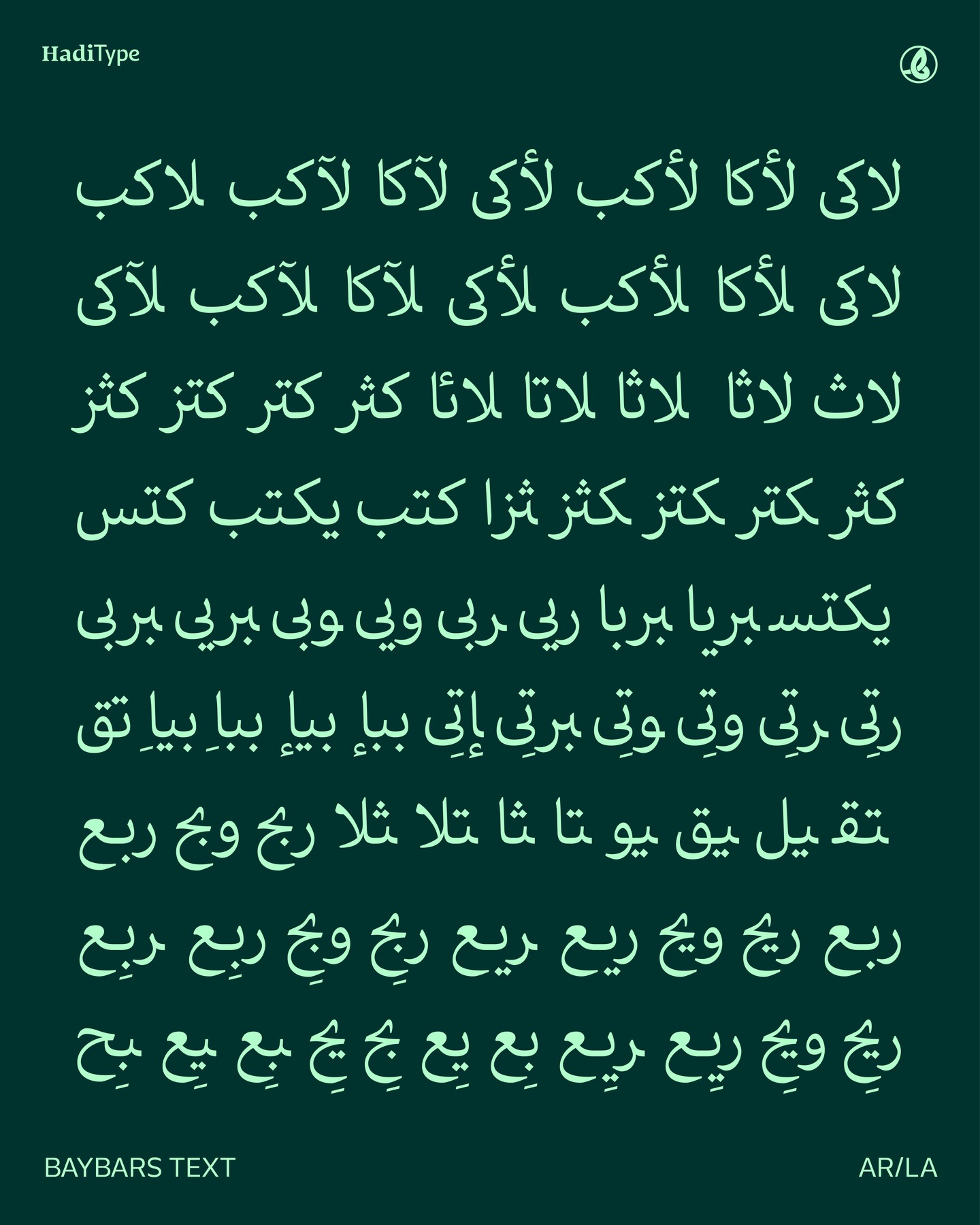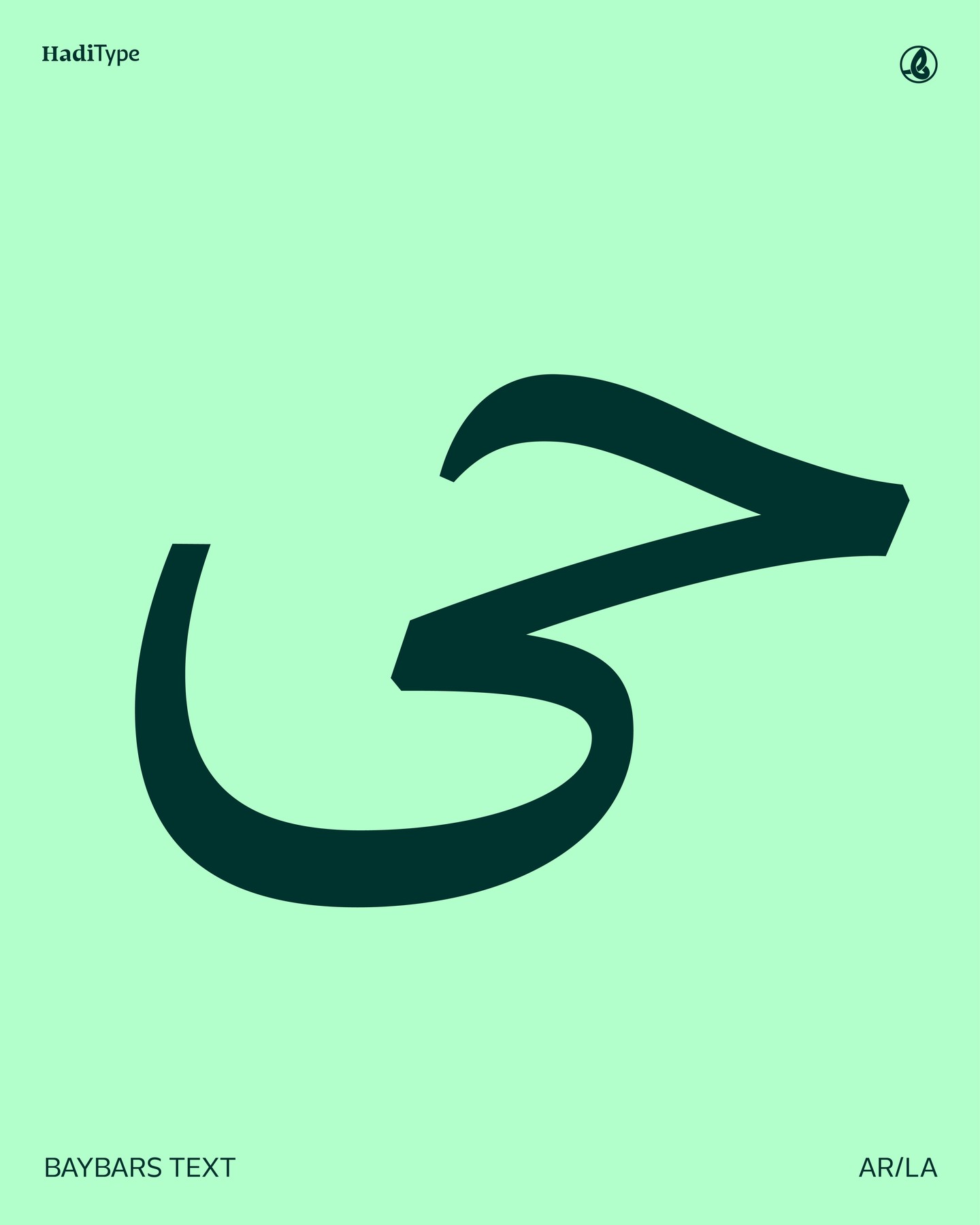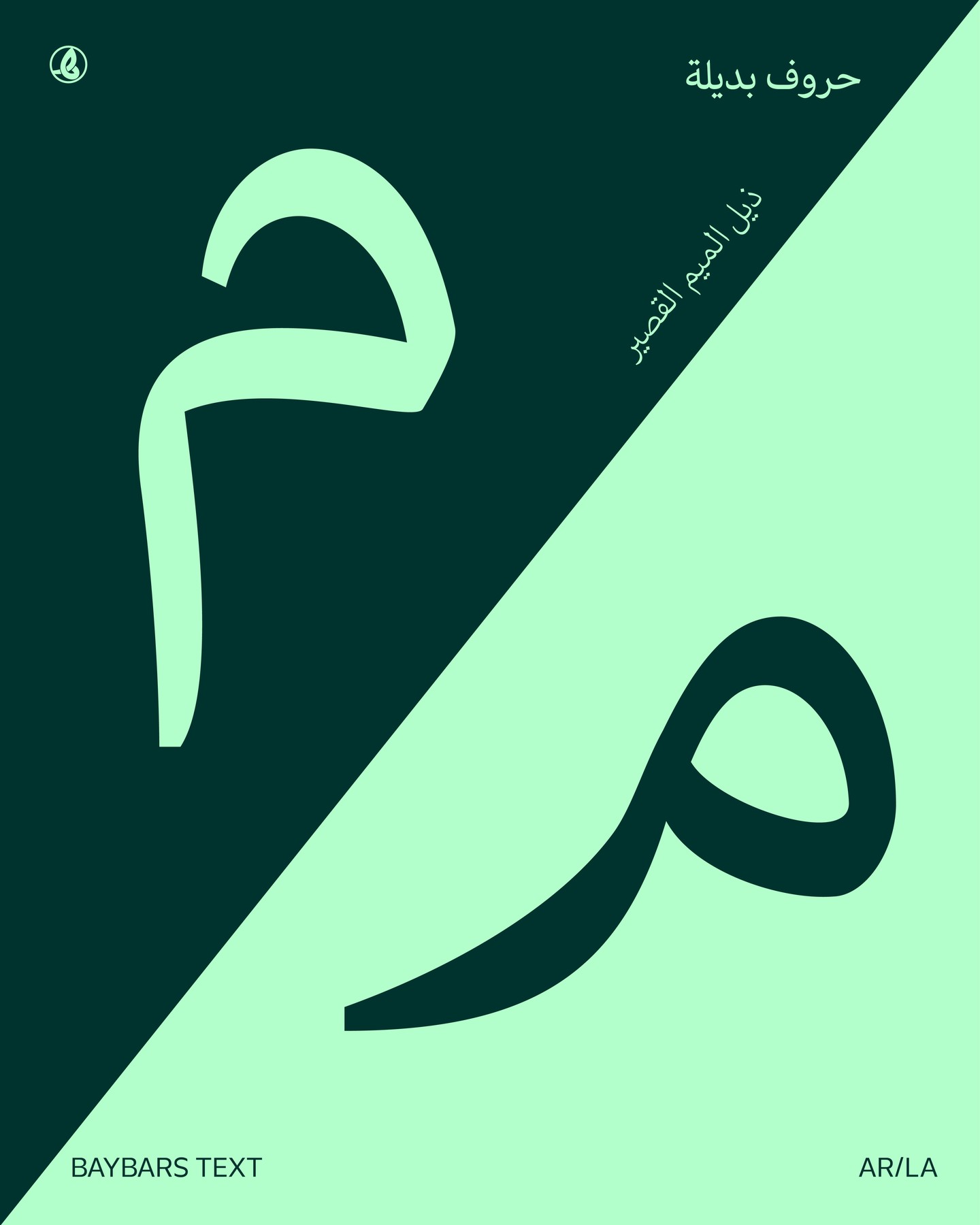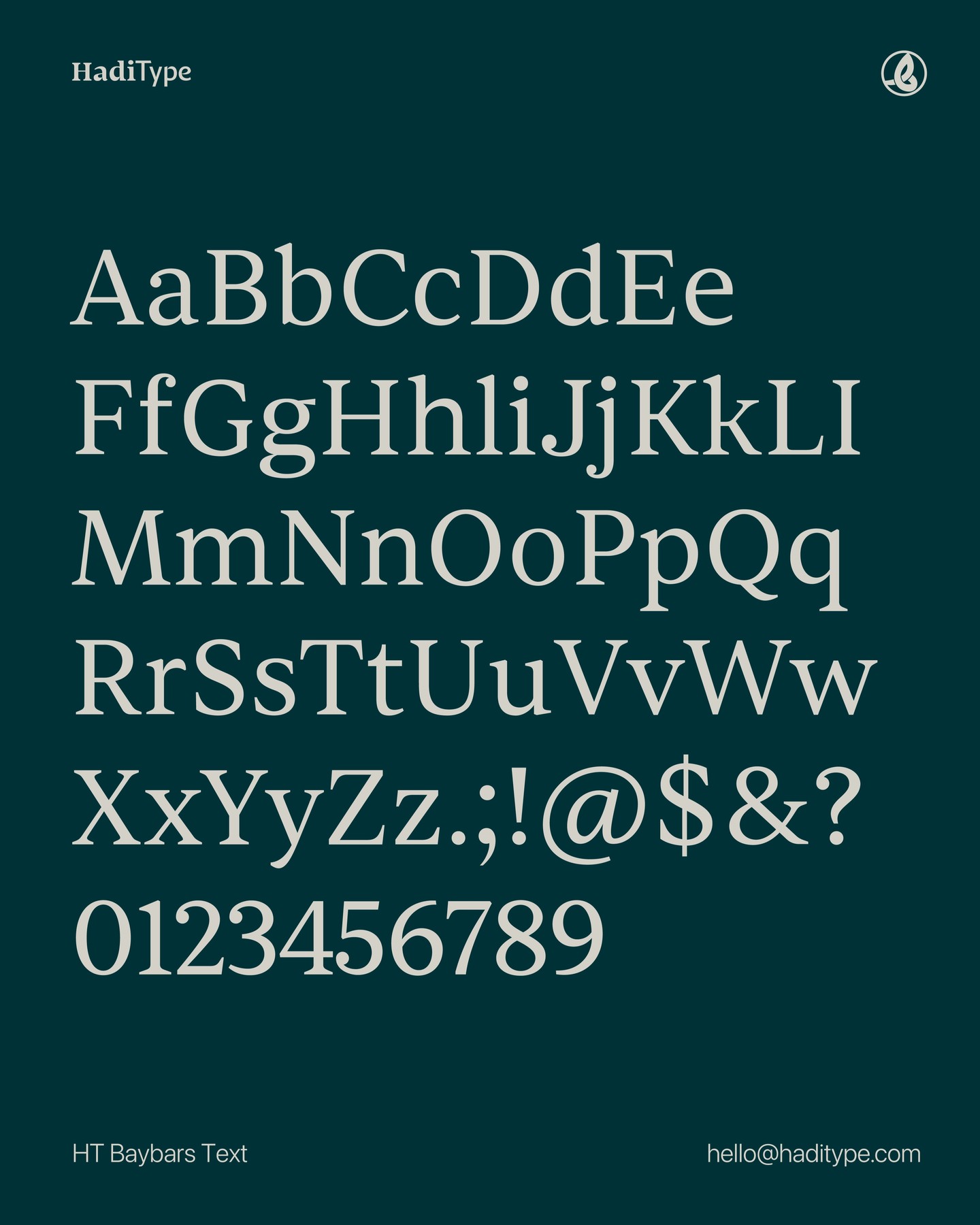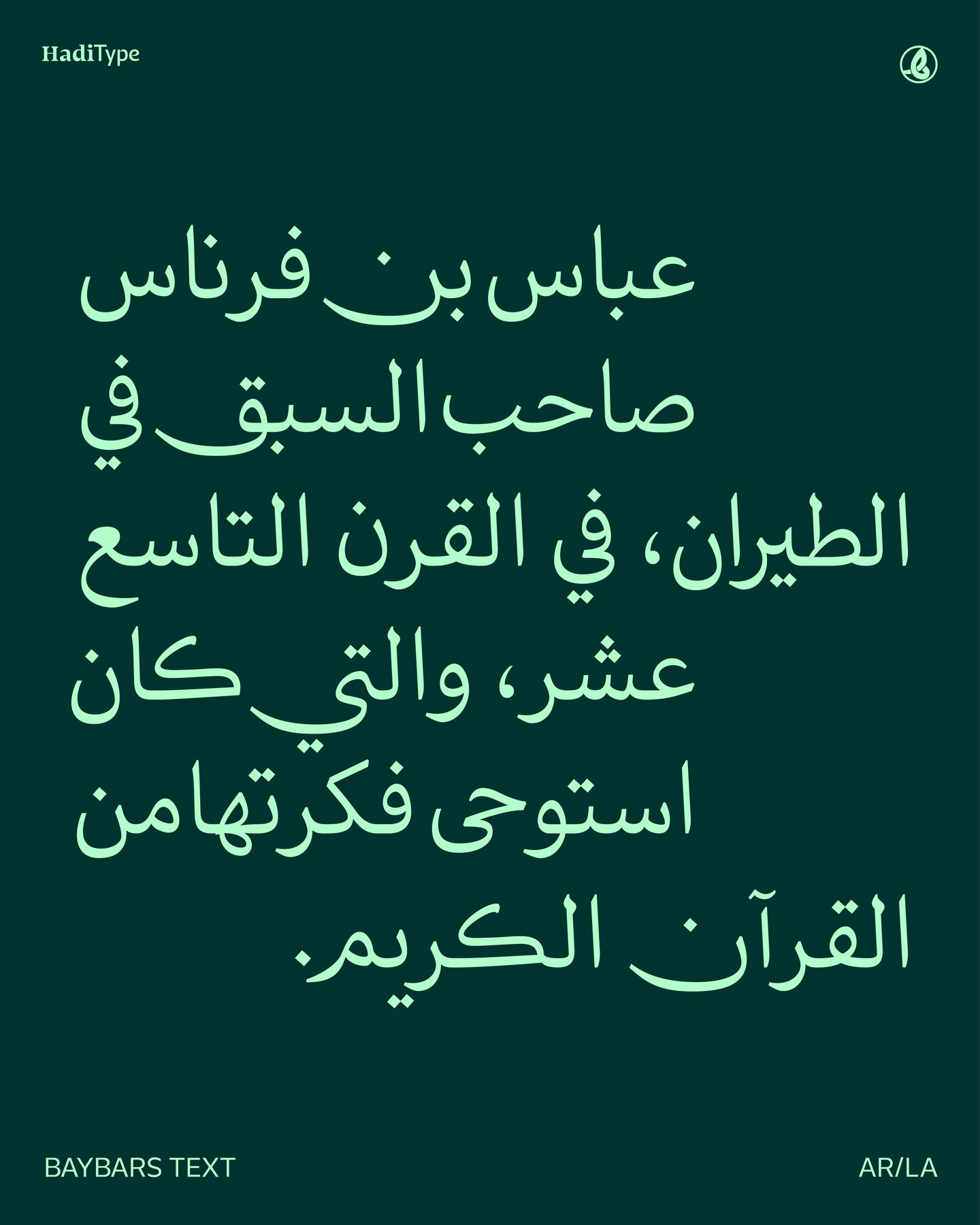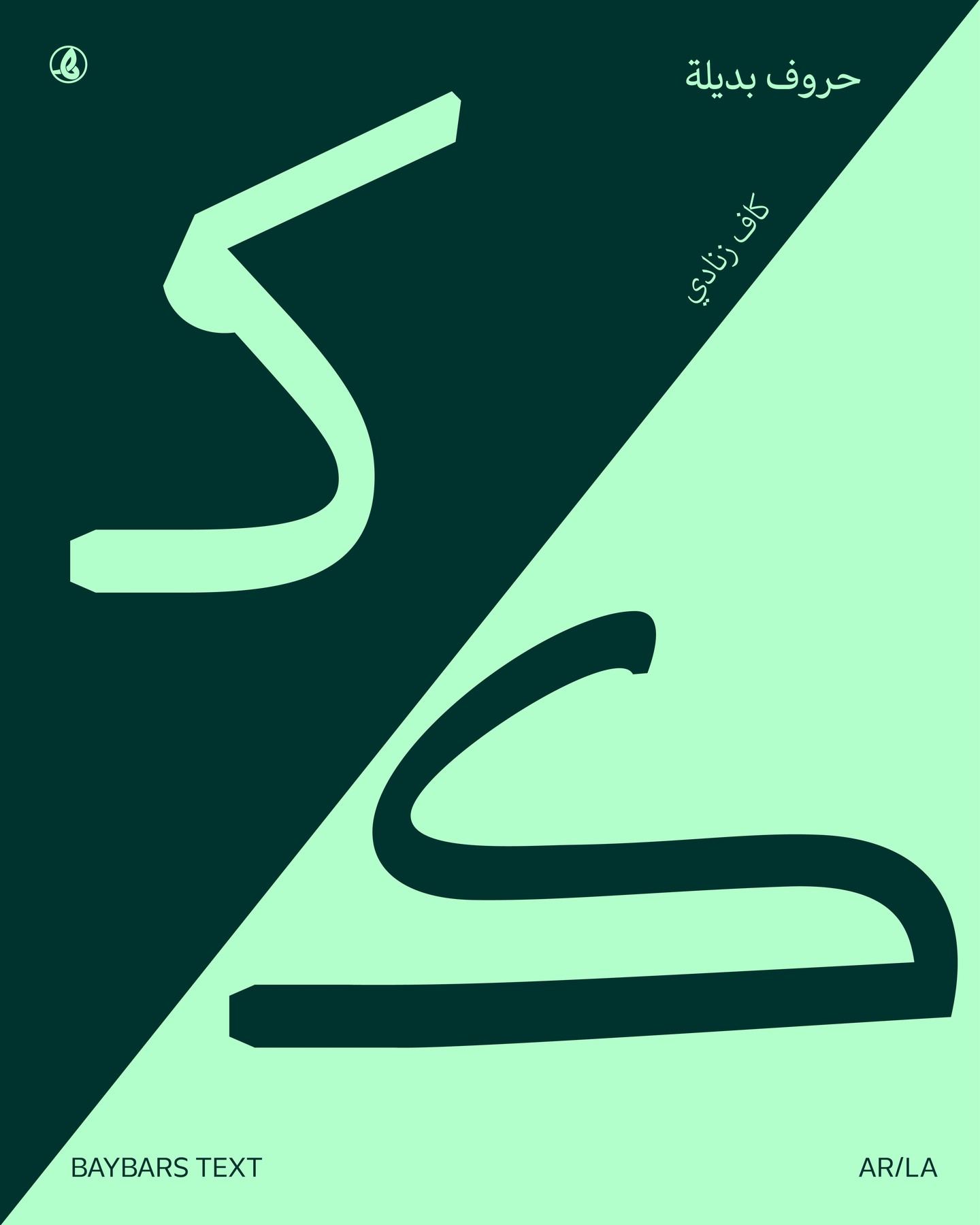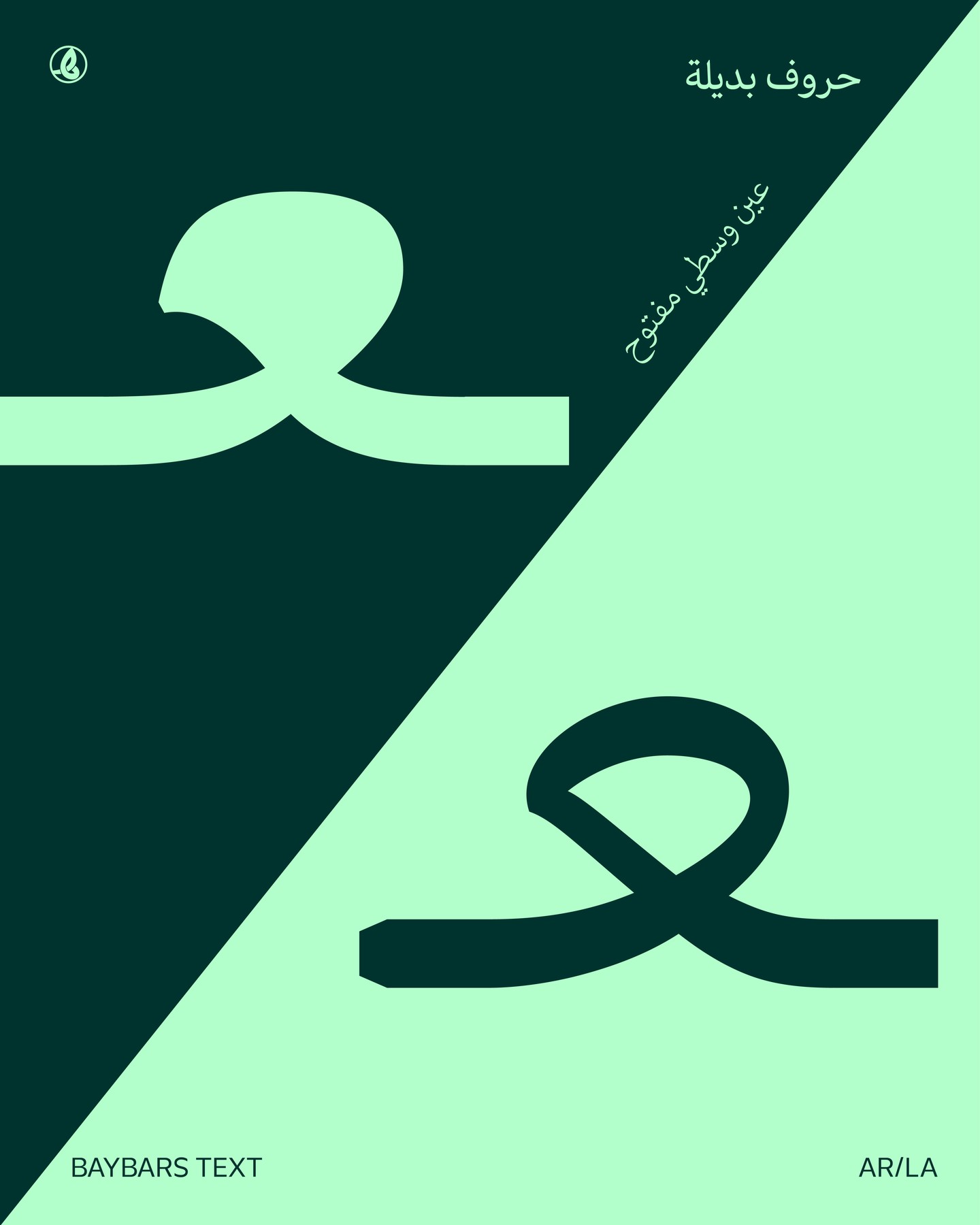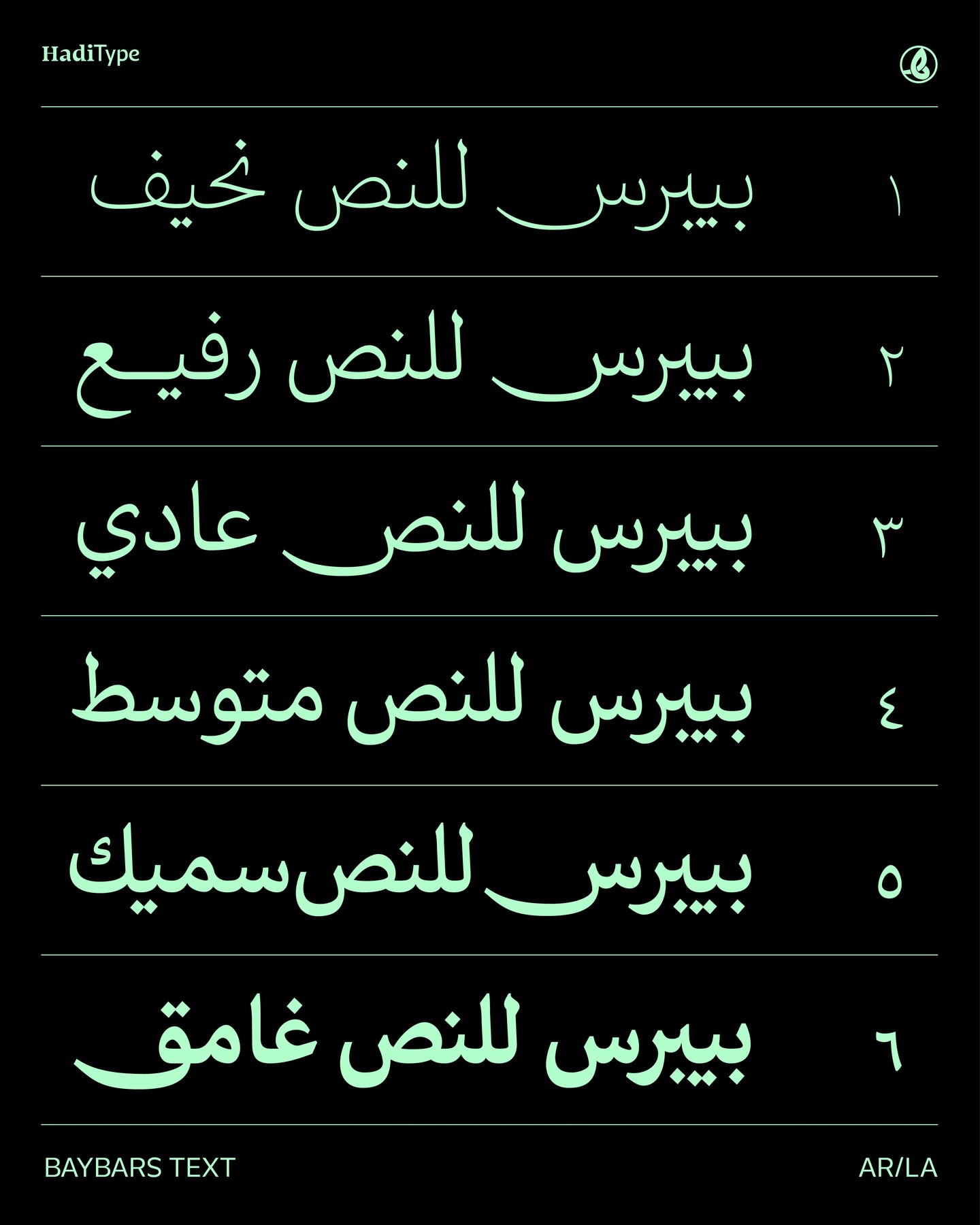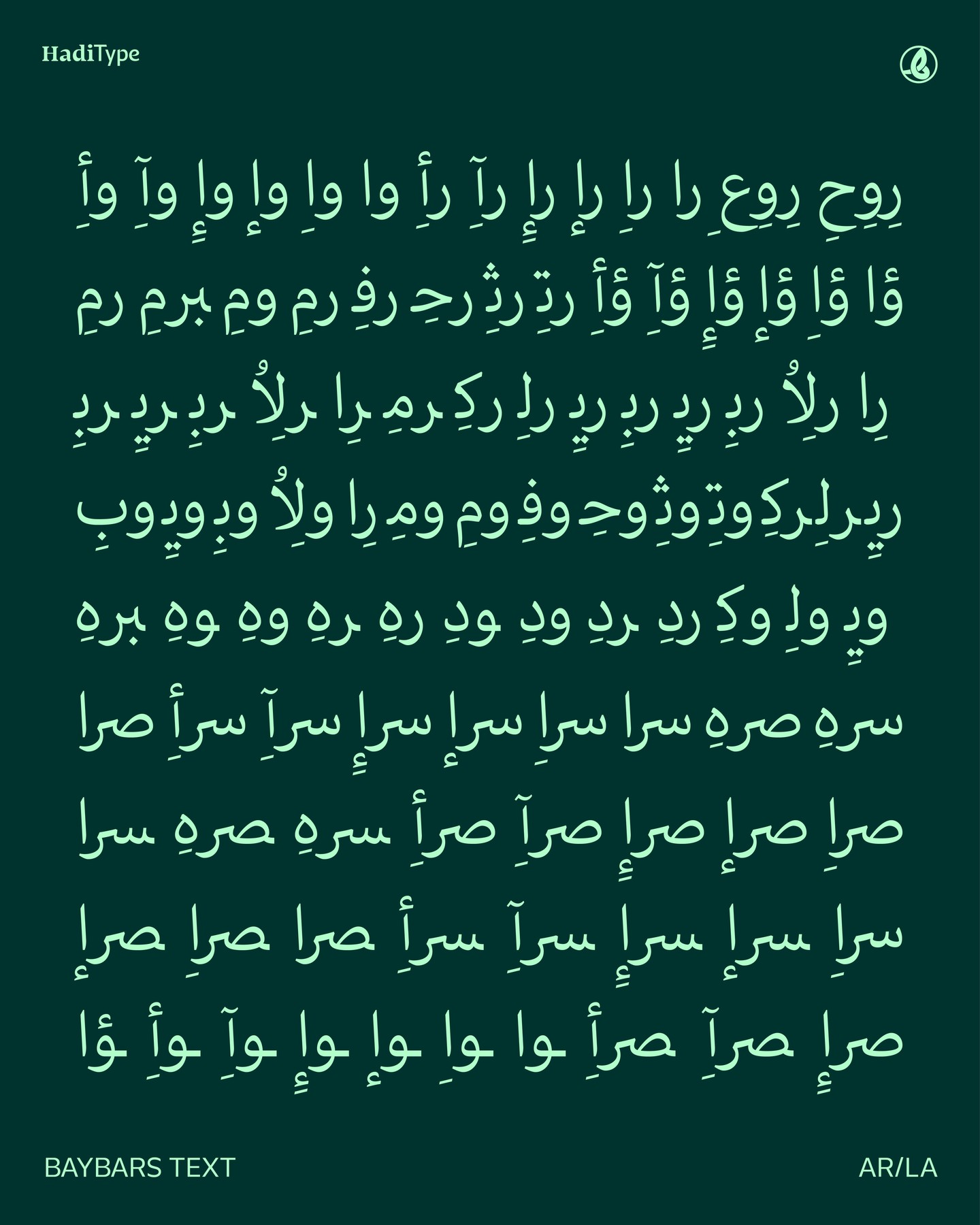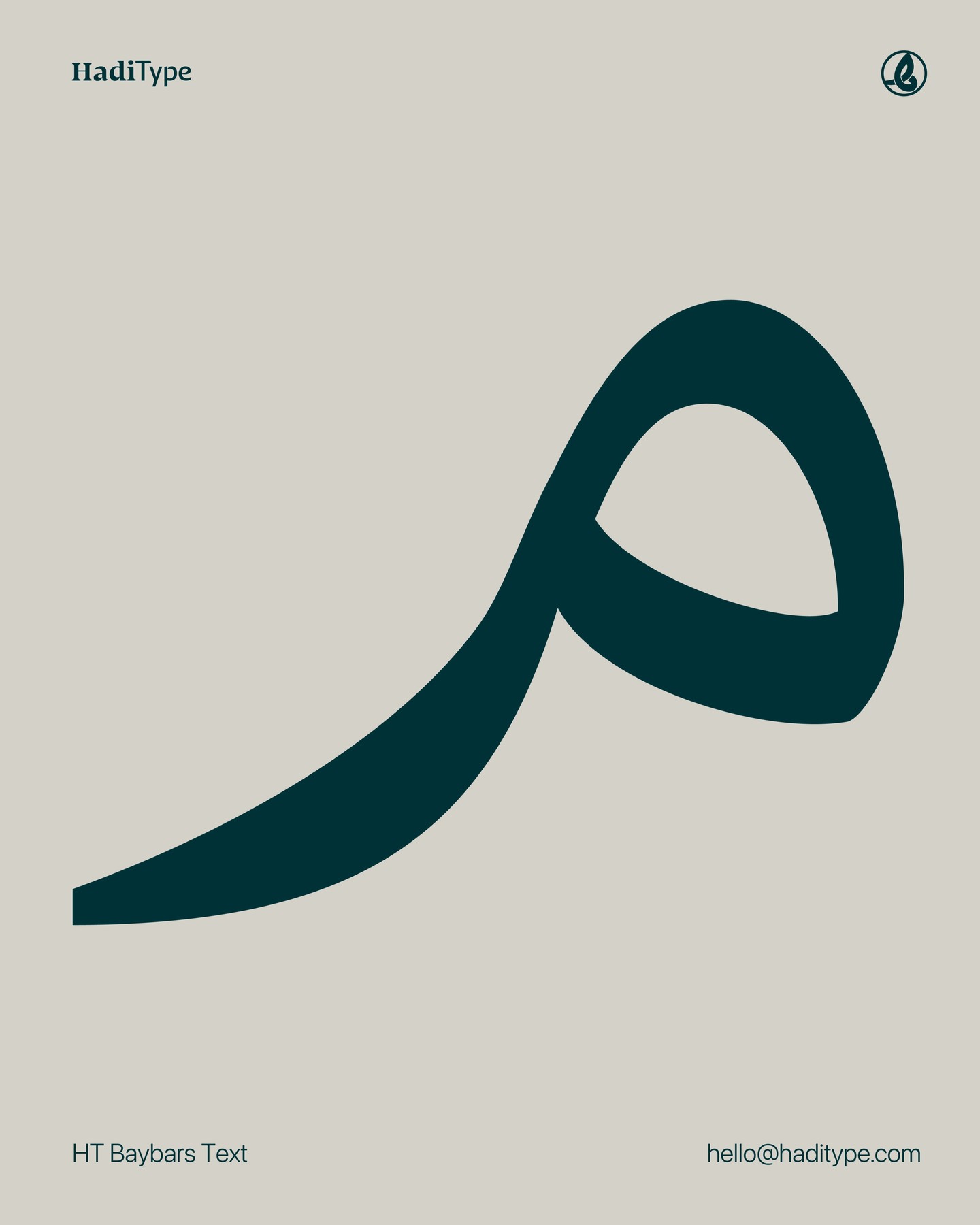
HT Baybars Text
بيبرس – تصميم كلاسيكي بلمسة معاصرة
بيبرس – خط عربي للنصوص الطويلة بخطى ثابتة وواضحة
بيبرس... وضوح القراءة وأناقة النسخ
توازن بصري مثالي للقراءة المطوّلة
خط عربي للكتب، المجلات، والتطبيقات
بيبرس – الخط العربي المناسب للمحتوى الجاد
Baybars Text Font is the culmination of extensive research on classic Arabic typographic designs that I have worked on for a long time. I aim to offer a unique tool for enthusiasts of Naskh fonts specifically and text fonts in general. "Baybars Text strikes a balance between purely traditional handmade scripts and strictly geometric fonts with their well-known proportions and precision.
Designed with great attention to detail and care in drawing connections, "Baybars Text" ensures high clarity in both large and small sizes while successfully conveying a sense of modernity and authenticity at first glance.
The font is based on two main directions: a serif and a sans-serif style, allowing users to alter the font’s personality easily. It also includes several distinctive alternative glyphs such as the open ‘Ain and Ghain, the extended Meem, and the Zandari-style Kaf, along with a curved alternative shape for the Indian numeral 2. This makes "Baybars Text" an ideal choice for use in magazines, books, branding, and bilingual projects.
We have included some rarely offered weights in the text font family to give designers greater flexibility. In addition to the usual thin, light, regular, medium, and bold weights, "Baybars Text" also offers a fine and extra weight. The font supports Persian, Urdu, Maghrebi Arabic, and North African Arabic and includes Latin letters specifically designed to harmonize with the Latin and Arabic scripts.
For those complex projects where none of the specified weights suffice, Haditype provides a variable font version. Users can choose from various weights using the contrast slider to gain more flexibility and variety.
Designer: Muhammed Hadi
Foundry: HadiType Foundry